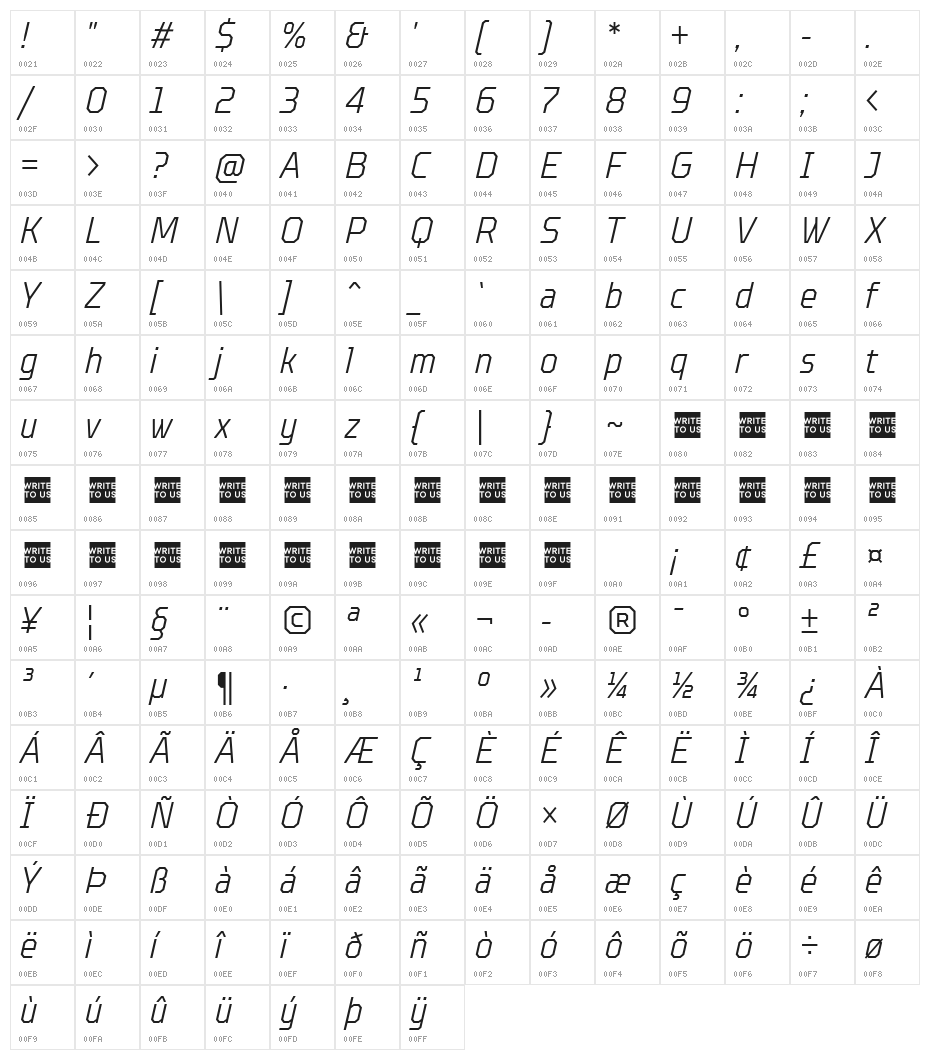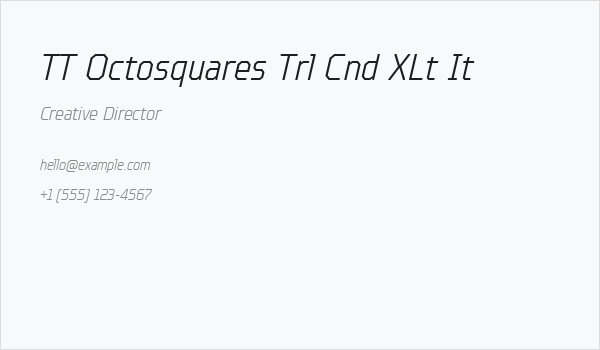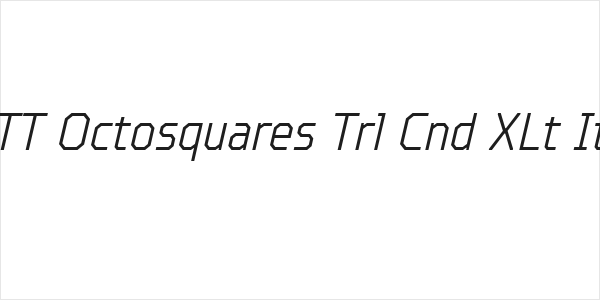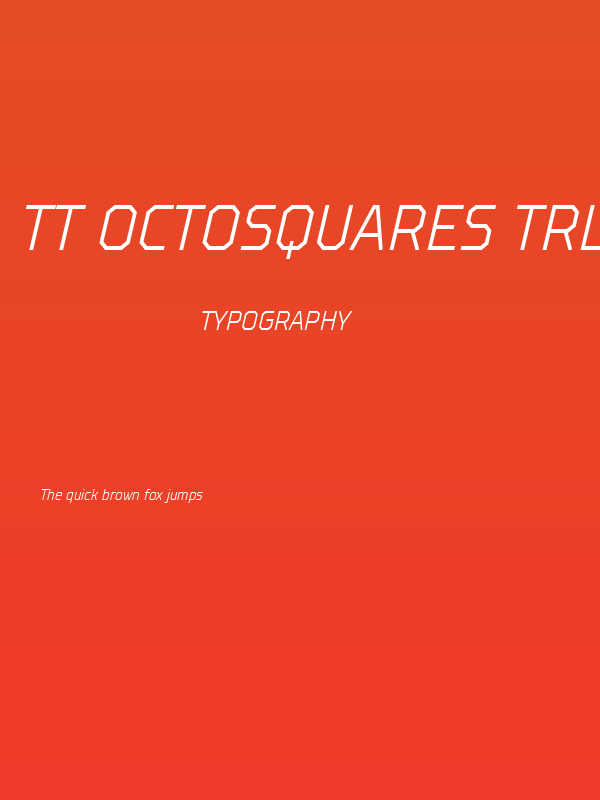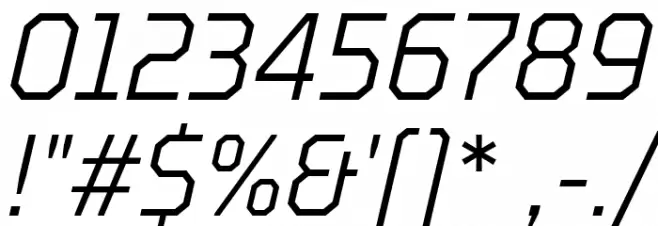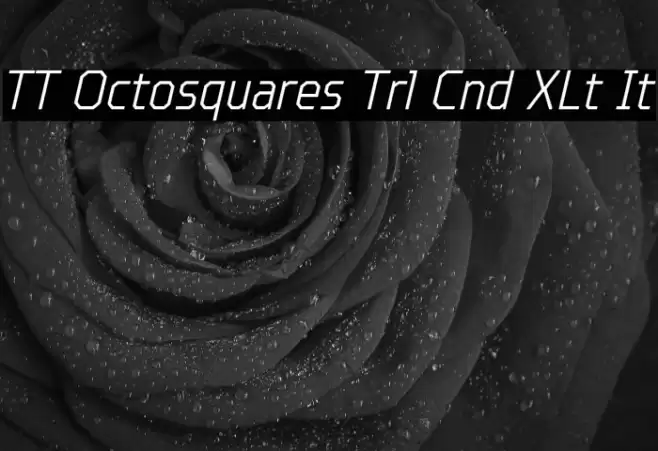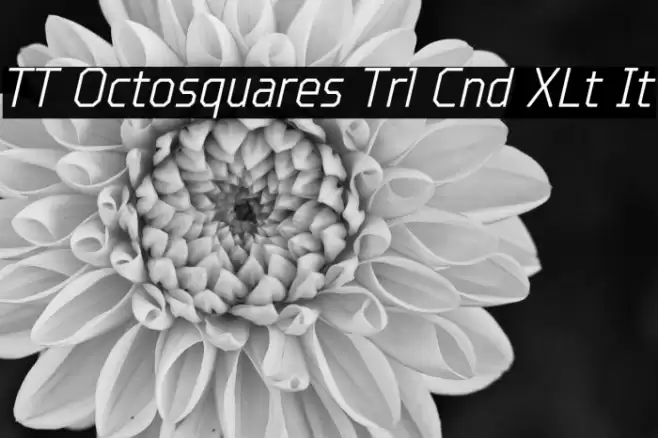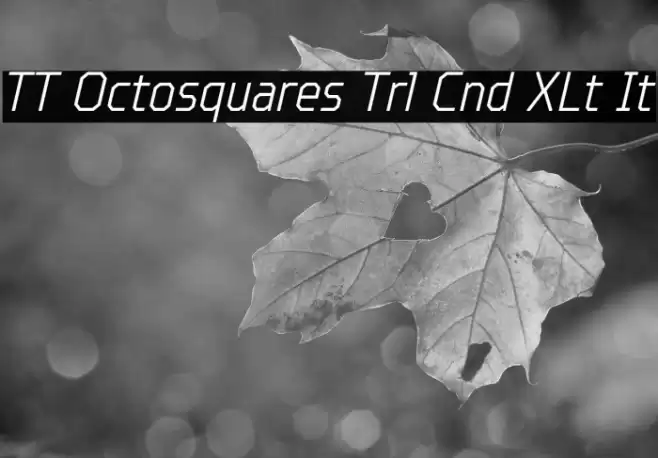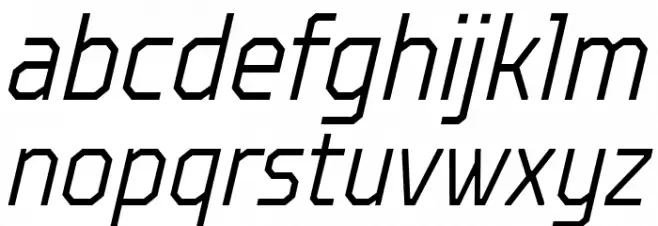
TT Octosquares Trl Cnd XLt It Font
TT Octosquares Trl Cnd XLt It Description
This font features a modern and geometric design with a distinct angular style. The characters are constructed with sharp edges and a slight slant, giving it a dynamic and futuristic appearance. The uppercase and lowercase letters maintain a consistent height, while the numerals and special characters align seamlessly with the overall aesthetic. The font's condensed width and extra light weight contribute to its sleek and streamlined look, making it suitable for contemporary design projects. The italicized form adds a sense of motion and fluidity, enhancing its visual appeal.
| Use Case | Headlines, Logos, Digital interfaces |
| Proposed Projects | Ideal for tech branding, futuristic posters, digital interfaces, and modern editorial design. |